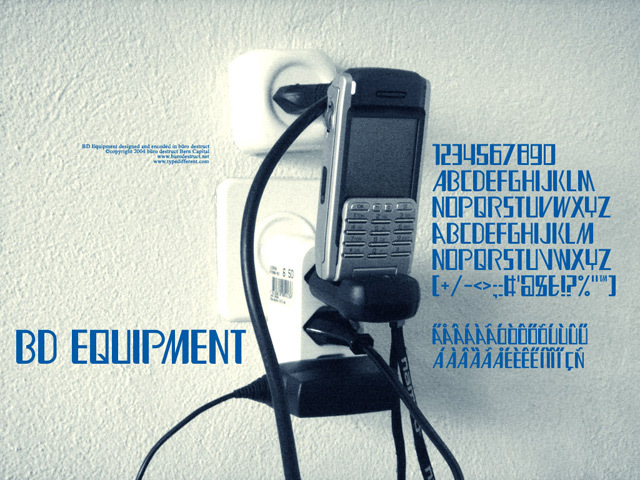
BD Equipment, designed and encoded by Lopetz04 of Buro Destruct, is a free retro display font with dramatically condensed lettering. Broad vertical strokes meet hairline-thin joins, creating severe contrast across the tall forms. The repeated rectangular cuts look mechanical and architectural.
Industrial machinery and modernist architecture are natural themes for this design. Its towering proportions suit music posters, fashion editorials, and packaging for technical or experimental products. The lettering can also give exhibition graphics the look of vintage engineering diagrams and factory signage.
BD Equipment